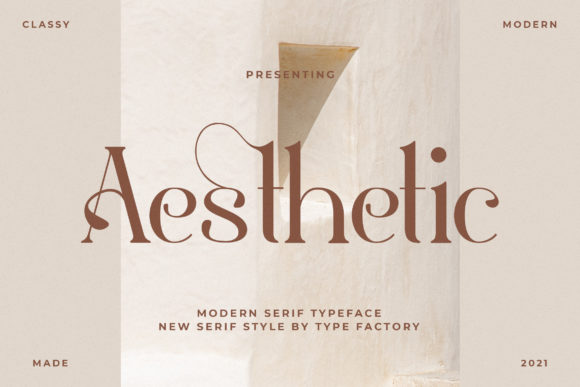
Aesthetic Font Download Premium Font: Fonts are more than just tools for writing text. The right font can completely change how a design feels, whether it’s sleek and professional or warm and playful. One typeface that has been winning the hearts of modern designers is Aesthetic Font. With its clean lines and timeless appeal, this serif font captures the essence of minimalist design while remaining versatile enough for countless creative uses.
What is the Aesthetic Font?
Aesthetic Font is a modern serif typeface designed with simplicity in mind. Unlike ornate or heavily stylized fonts, it features clean strokes, balanced proportions, and subtle serifs that bring sophistication without unnecessary flair.
The beauty of this font lies in its minimalist feel. It doesn’t try to dominate the design but instead enhances it by adding just enough structure and refinement. Whether you’re creating a personal project or professional branding, Aesthetic Font adapts effortlessly.
Why Designers Love Aesthetic Font
Here are some of the top reasons this font has become a favorite in creative communities:
Timeless Minimalism
Minimalist design never goes out of style. Aesthetic Font aligns perfectly with current trends that favor simplicity, white space, and balance. -
High Versatility
It works across different mediums—from digital interfaces to print materials—without losing its charm. -
Professional Yet Stylish
Unlike many fonts that lean too far into either playful or corporate, Aesthetic Font finds a middle ground, making it ideal for both casual and professional projects. -
Easy to Read
Its structure ensures excellent legibility, even in smaller sizes, making it reliable for body text as well as headlines.
Perfect Uses for Aesthetic Font
This font shines in a wide variety of design scenarios. Some of the most common uses include:
Logos & Branding
Businesses looking for a modern and professional identity can use Aesthetic Font to establish trust and sophistication. -
Editorial Design
Magazines, eBooks, and online articles benefit from its clean, easy-to-read layout. -
Web Design
Minimalist websites often rely on serif fonts for their headers and body text, and Aesthetic is an excellent choice. -
Social Media Graphics
Its refined look makes Instagram posts, Pinterest pins, or Facebook ads more polished. -
Invitations & Stationery
Wedding invitations, greeting cards, and thank-you notes feel classy with Aesthetic’s minimalist style.
How to Use Aesthetic Font Effectively
To make the most of this font, keep these design tips in mind:
Pair Wisely
Combine Aesthetic with sans-serif fonts like Helvetica, Lato, or Montserrat for a clean contrast. -
Keep It Spacious
Minimalist fonts thrive on white space. Don’t crowd your design; let the text breathe. -
Use in Headings & Body Text
Because it’s versatile, you can use Aesthetic for both large headers and smaller text blocks. -
Stick to Neutral Palettes
Aesthetic looks particularly good when paired with muted tones like beige, grey, black, or soft pastels.
Aesthetic Font in Modern Design Trends
Minimalism is one of the defining design movements of the 21st century. From Scandinavian interiors to sleek tech branding, “less is more” continues to guide creative work. Fonts like Aesthetic fit perfectly into this movement because they allow visuals and content to shine without distraction.
The Aesthetic Font is proof that simplicity can be powerful. With its minimalist design and timeless appeal, it adapts seamlessly to modern branding, editorial layouts, and digital media. Whether you’re designing a wedding invitation, a fashion logo, or a sleek website, this typeface adds just the right touch of refinement.